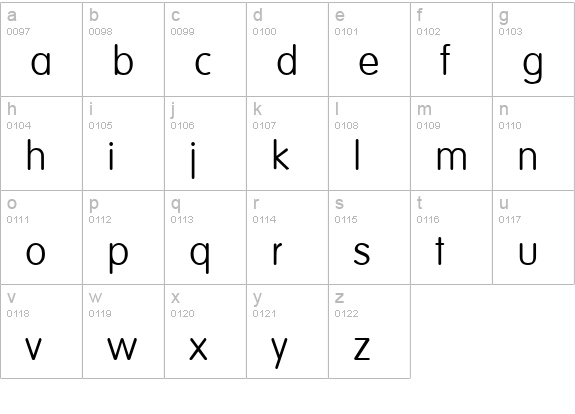
The Elementary SF font is a modern and sleek sans-serif typeface that exudes simplicity and clarity. Its clean lines and elegant design make it perfect for a wide range of design projects, from branding to editorial layouts. The font is versatile and easy to read, making it ideal for both digital and print applications. Best of all, the Elementary SF font is completely free to use! You can download this amazing font for free at FontsMarket.com. Whether you're a designer looking for a new typeface to add to your collection or a business owner in need of a fresh look for your branding, the Elementary SF font is sure to impress. Don't miss out on this fantastic opportunity to enhance your designs with this stylish and sophisticated font - download it for free today!